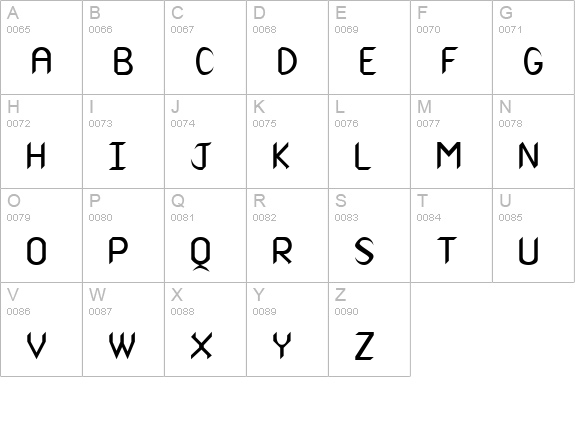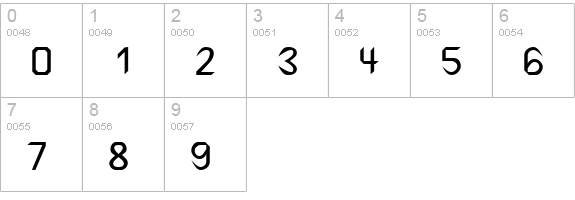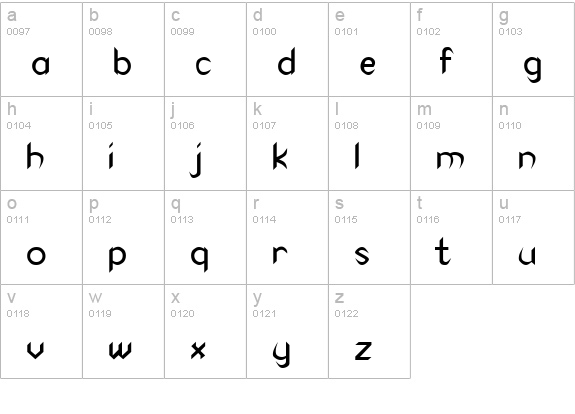
Meteorit Font Details
Introducing Meteorit font, a sleek and modern typeface that exudes a futuristic vibe perfect for any design project. With its sharp edges and bold, dynamic look, Meteorit font is sure to make a statement and capture attention. This versatile font is ideal for branding, headlines, posters, and more. The best part? Meteorit font is available for free download at FontsMarket.com. That's right, you can get your hands on this stunning font at no cost, making it a must-have addition to your font collection. Don't miss out on the opportunity to elevate your designs with the eye-catching Meteorit font - download it today and let your creativity soar!